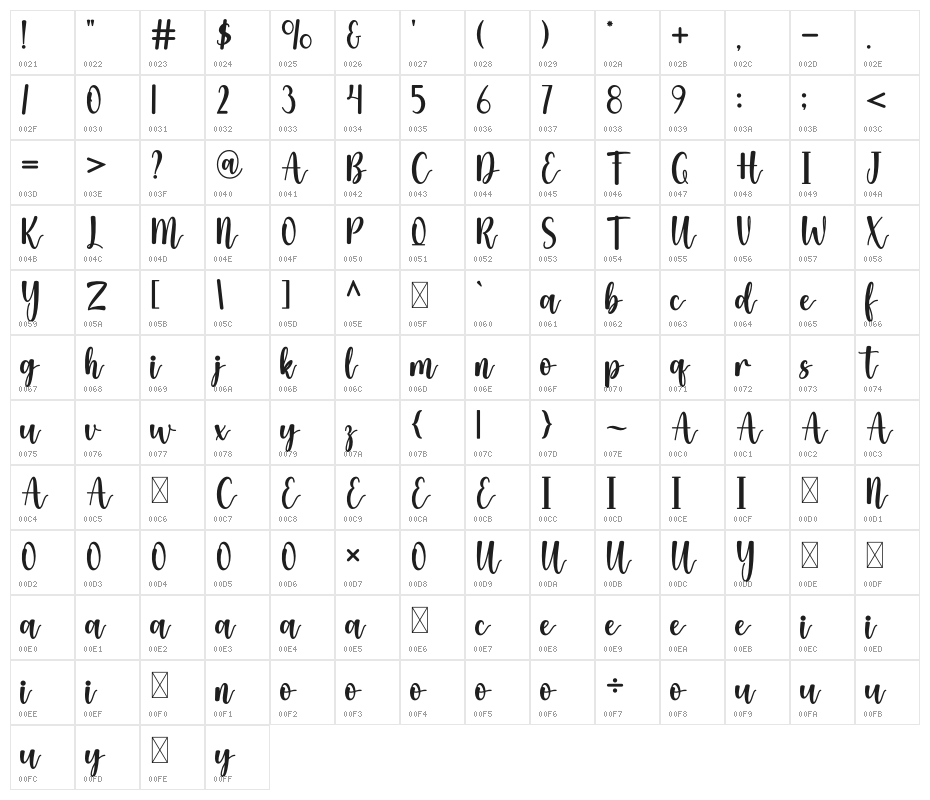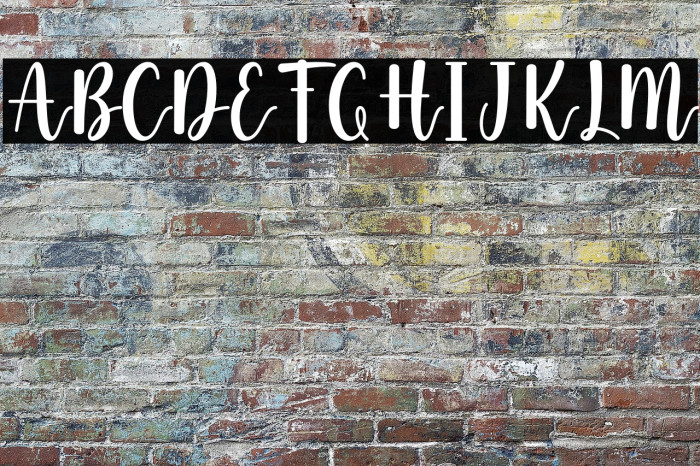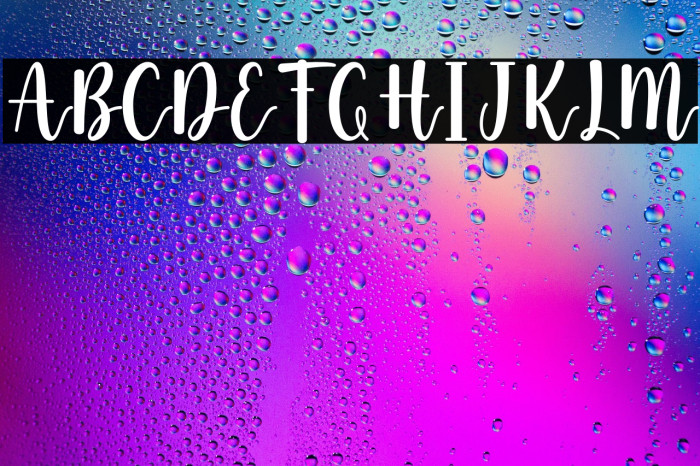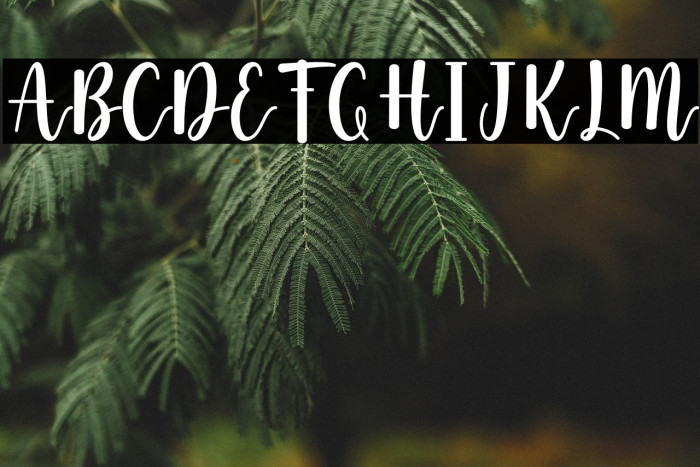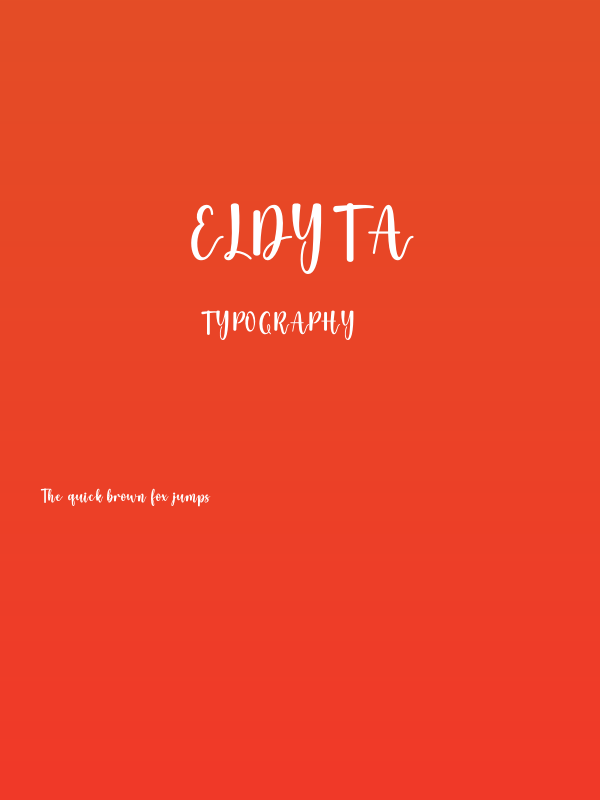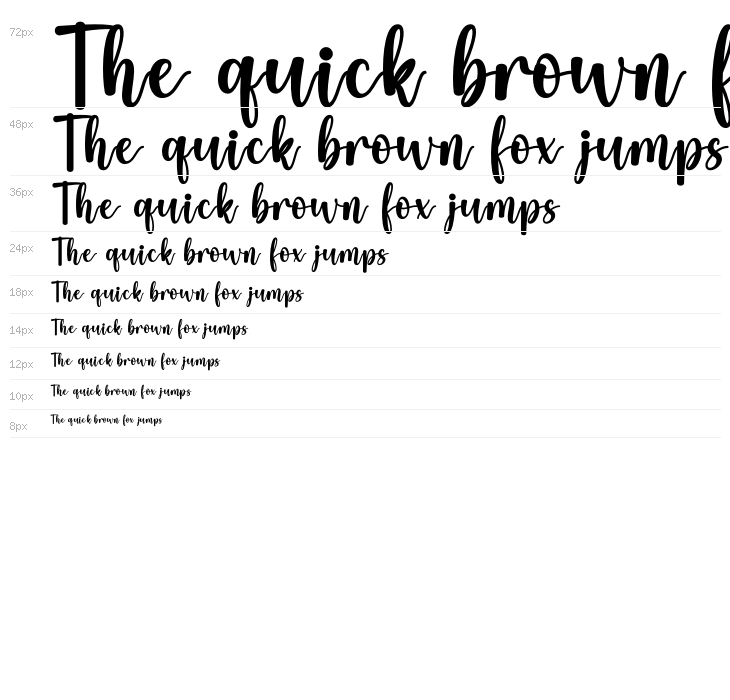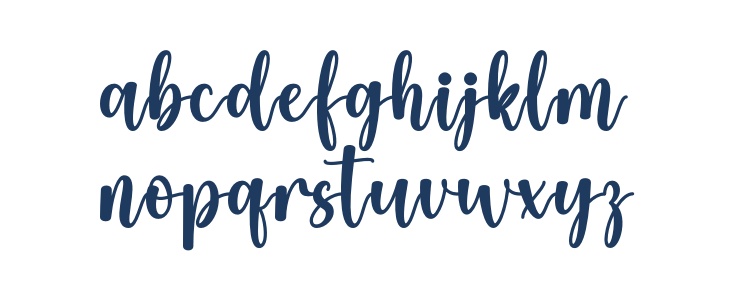
Eldyta Font
Eldyta Description
This font features a playful and energetic script style, characterized by its flowing, cursive letters and bold strokes. The uppercase letters are tall and elegant, with a slight slant that adds a dynamic feel. The lowercase letters are rounded and connected, enhancing the handwritten appearance. Numbers and special characters maintain the same lively and bold aesthetic, ensuring consistency across all elements. The overall design is both modern and whimsical, making it suitable for creative and informal applications.
Overall StyleModern, Decorative
Use CaseLogos, Headlines, Invitations
Proposed ProjectsIdeal for greeting cards, invitations, branding, and social media graphics where a personal and lively touch is desired.